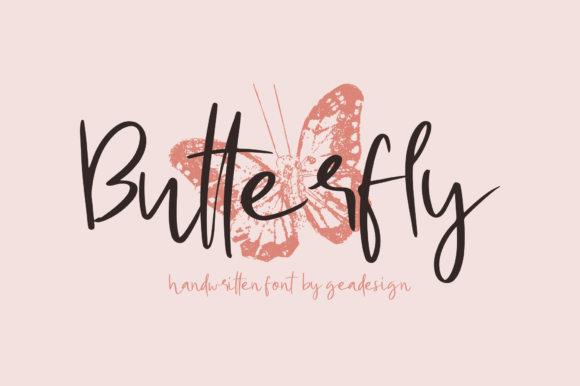
The Butterfly Effect: How a Unique Font Can Transform Your Designs
I’ll never forget the time I was working on a project for a client who wanted a whimsical, handcrafted feel. I had spent hours scouring font libraries, but nothing seemed quite right. That was until I stumbled upon the Butterfly font. Its unique, handwritten charm instantly captured the essence of what my client was looking for. In this article, I’ll share my experience with the Butterfly font, its features, and how to make the most of it in your designs.
A First Impression: What Makes Butterfly Font So Special
The Butterfly font is described as a “cool and stunning handwritten font with a unique flavor.” This description couldn’t be more accurate. Its distinctive style can instantly elevate any design project, making it a standout. Whether you’re a designer, crafter, or creative hobbyist, this font is sure to inspire.
What I Love About Butterfly Font
- ✨ Unique and eye-catching design that’s sure to grab attention
- ✅ Highly versatile and adaptable to various design projects
- 💫 Supports OpenType features, glyphs, and stylistic alternates for added creativity
- 🎨 Comes with a wide range of characters, including ligatures and diacritical marks
While the Butterfly font is exceptional, there are a few things to keep in mind:
The Butterfly font was designed with the intention of capturing the carefree, artistic spirit of a butterfly in flight. Its creator aimed to craft a font that would inspire designers to think outside the box and add a touch of whimsy to their work.
Q: What type of projects is the Butterfly font best suited for?
A: The Butterfly font is versatile and can be used in a variety of projects, including branding, packaging, posters, and digital media.
Q: Does the Butterfly font support non-English characters?
A: Yes, the Butterfly font includes support for a wide range of characters, including diacritical marks and non-English characters.